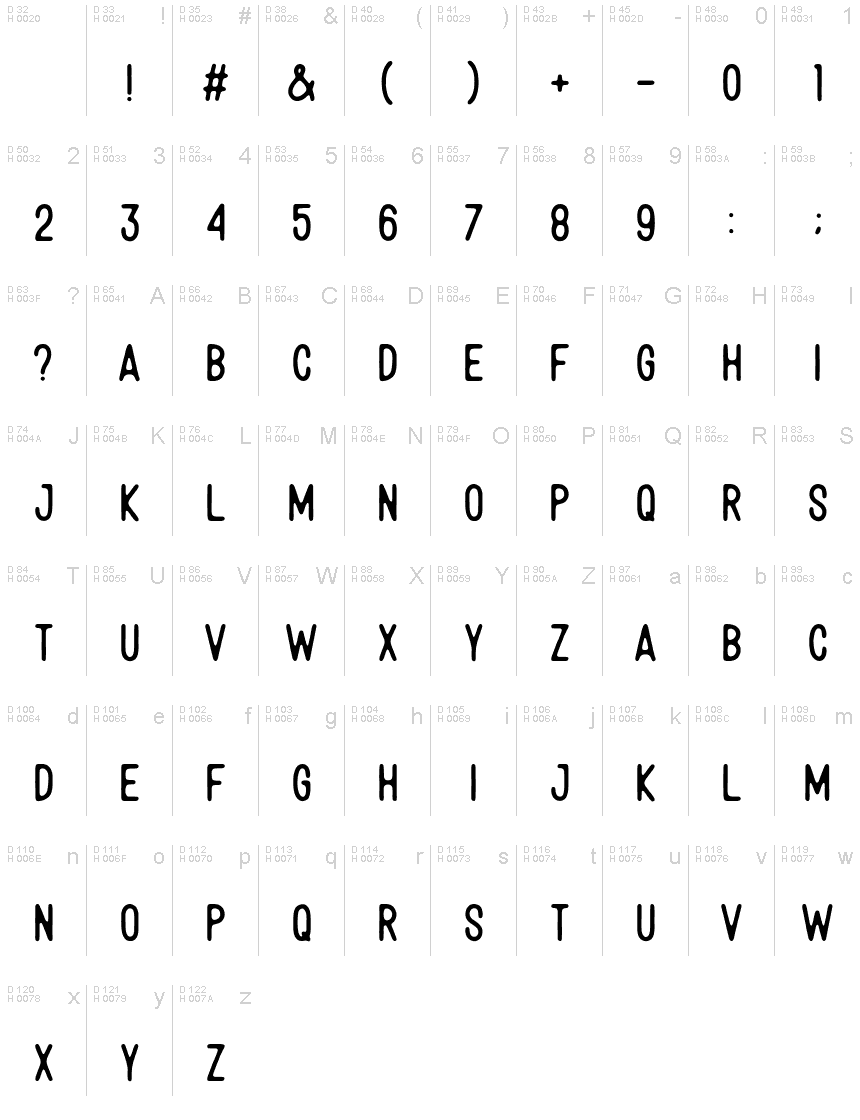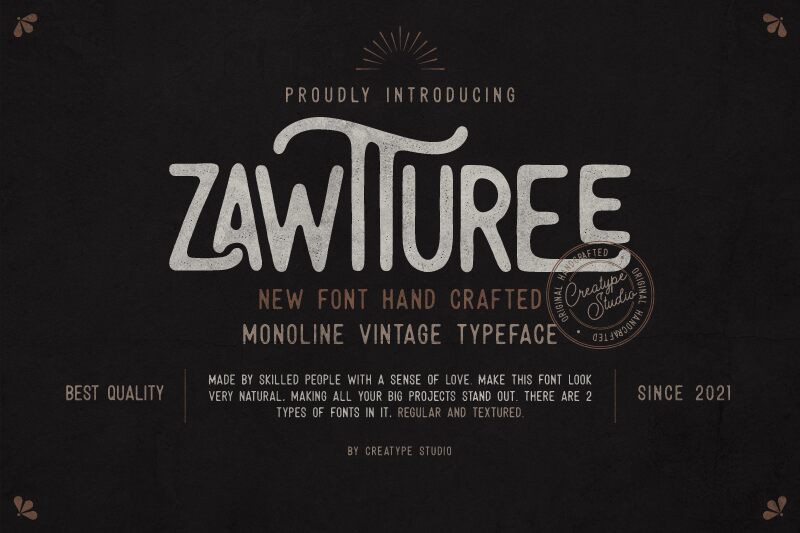
Zawtturee Regular
Zawtturee by Creatype Studio is a stunning display font that exudes the charm of old-school vintage. With its monoline style and semi-light weight, Zawtturee gives your designs an effortlessly chic look that's perfect for branding, packaging, and marketing materials. The condensed width of the font adds an element of elegance to your text while ensuring maximum readability even in small sizes. Whether you're designing a logo for a boutique or creating posters for an upcoming event, Zawtturee is a versatile typeface that will make your projects stand out from the rest!